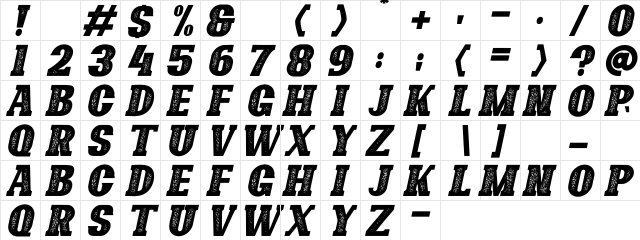
Bonaro Stamp Italic Demo Stamp Italic
Design Context for Bonaro Stamp Italic Demo Typeface
Bonaro Stamp Italic Demo has the rough pragmatism of spray-painted stencil signage, adding a raw, street-level authenticity to designs. The slanted form adds forward momentum and visual energy.
Ideal for industrial branding, streetwear, military-adjacent aesthetics, and urban signage projects.
Pro Tip: Pair Bonaro Stamp Italic Demo with raw, utilitarian design elements — exposed concrete textures, flat colour, and minimal ornamentation suit it well.